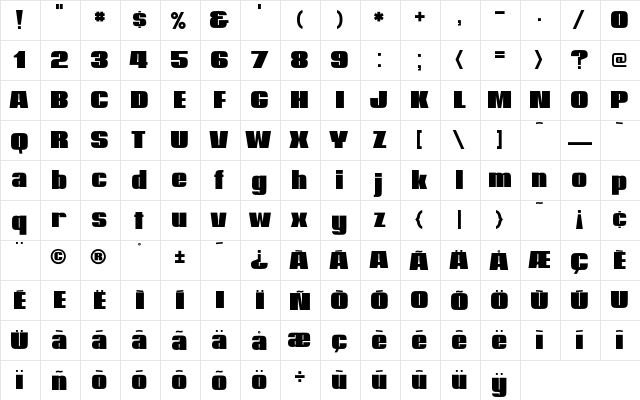
Heavy HeavyFat Font Preview
Heavy HeavyFat
Design Context for Heavy Typeface
Heavy offers clean, dependable letterforms without strong stylistic allegiance, making it a practical choice for designers who need flexibility.
Pro Tip: Use Heavy in both headline and body roles to test its range before committing to a single application.